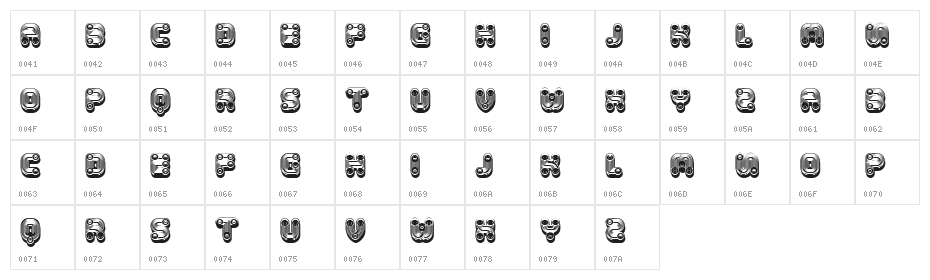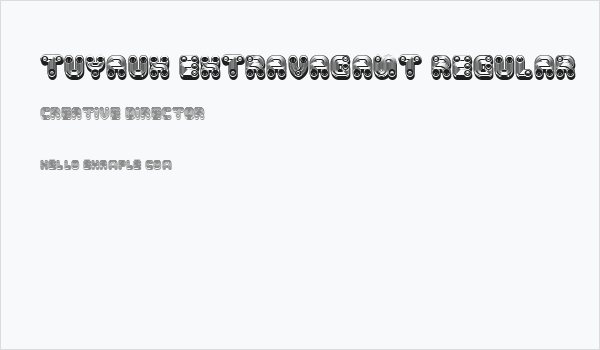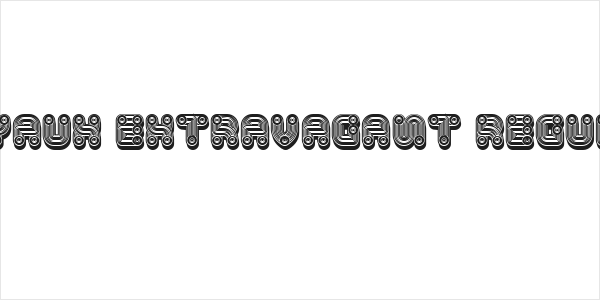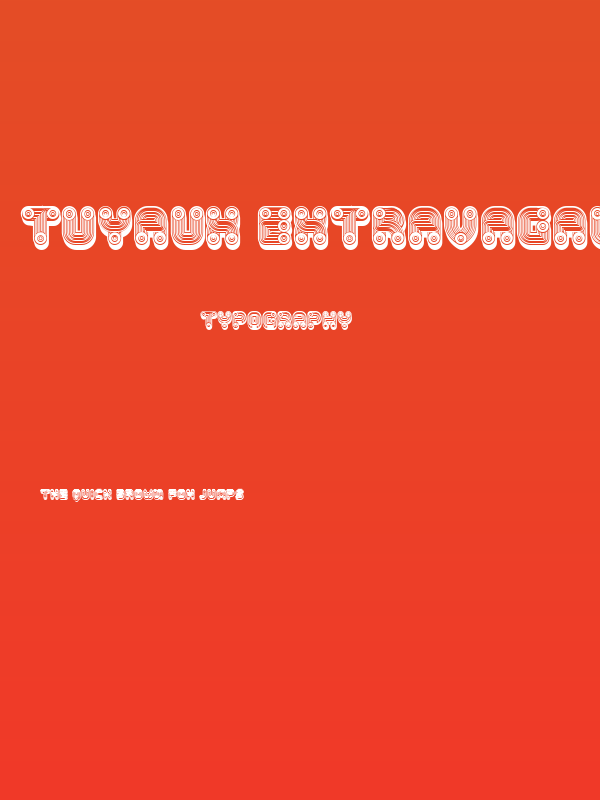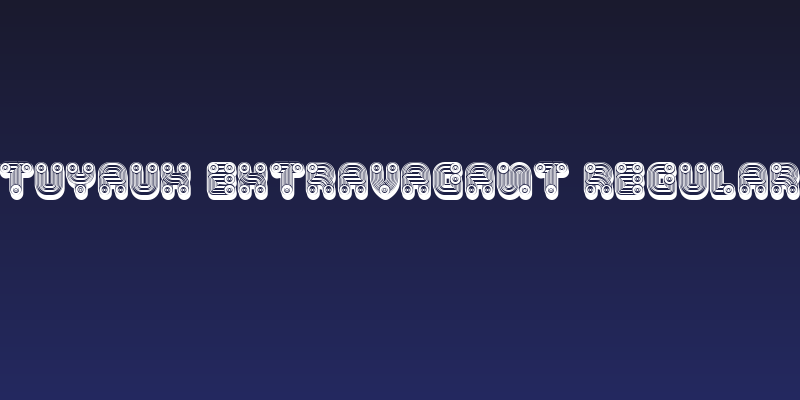
Tuyaux Extravagant Regular Font
Tuyaux Extravagant Regular Description
This font features a highly decorative and intricate design, characterized by multiple concentric lines forming each letter. The style is bold and eye-catching, with a unique, almost mechanical appearance. The letters are composed of layered, rounded shapes that create a sense of depth and movement. This font is ideal for projects that require a standout, artistic touch, as it combines elements of modern design with a playful, almost futuristic aesthetic. The boldness and complexity of the design make it unsuitable for body text but perfect for headlines or logos where a strong visual impact is desired.
| Overall Style | Modern, Futuristic |
| Proposed Projects | Ideal for posters, album covers, branding, and any project needing a bold, artistic statement. |